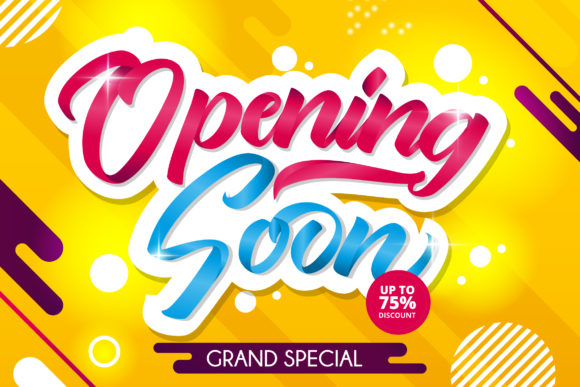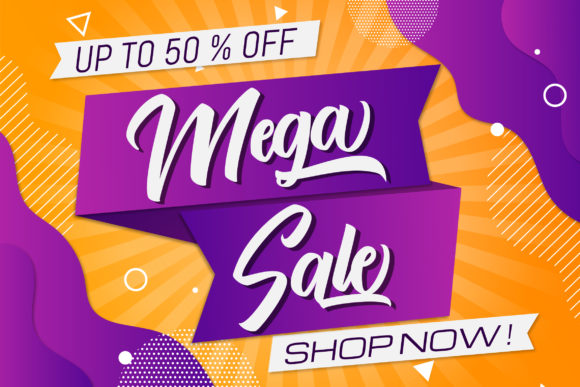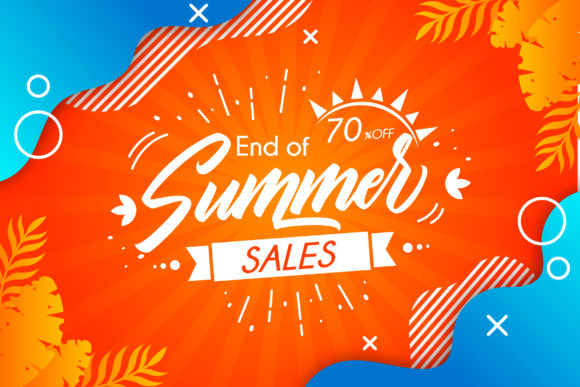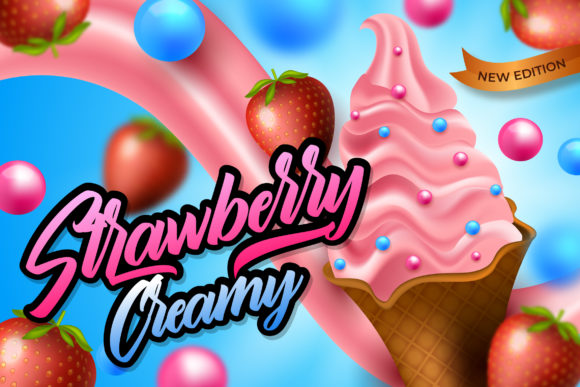
HomeScript FontsBythemis Quertas Font Script Fonts Bythemis Quertas Font FacebookXPinterestWhatsApp Bythemis Quertas Font Poster 2 Bythemis Quertas Font Poster 3 Bythemis Quertas Font Poster 4 Bythemis Quertas Font Poster 5 About Bythemis Quertas Font Bythemis Quertas is a modern script font with a cool charm. Fall in love with its modern simplicity. DOWNLOAD NOW People also explored Handmade Font Heart Font Filmotype Liberty Beautiful Spring Font Cladessia Font Tigreal Family Font Casablanka Font Antara Script Font Skandis Font 302 0 TagsBythemis Quertas Font Previous articleRusty the Buttcher FontNext articleBaritta Script Font LEAVE A REPLY Cancel reply Comment: Please enter your comment! Name:* Please enter your name here Email:* You have entered an incorrect email address! Please enter your email address here Website: Save my name, email, and website in this browser for the next time I comment. Personal Use Free Clumed Personal Use Free Read more about this font Ryujin Attack Personal Use Free Read more about this font Aelten Personal Use Free Read more about this font Barokah Personal Use Free Read more about this font BLOG Free Fonts Risk: Why Free Fonts Can Be Dangerous for Designers Free Fonts Risk: Why Free Fonts Can Be Dangerous for Designers Using free fonts is a common practice in web and graphic design. However, the... Exploring Font Trends How to Cut Any Font on Cricut: Convert a Font to SVG (Free) Using Fonts in Digital Marketing: Tips to Strengthen Your Brand Identity